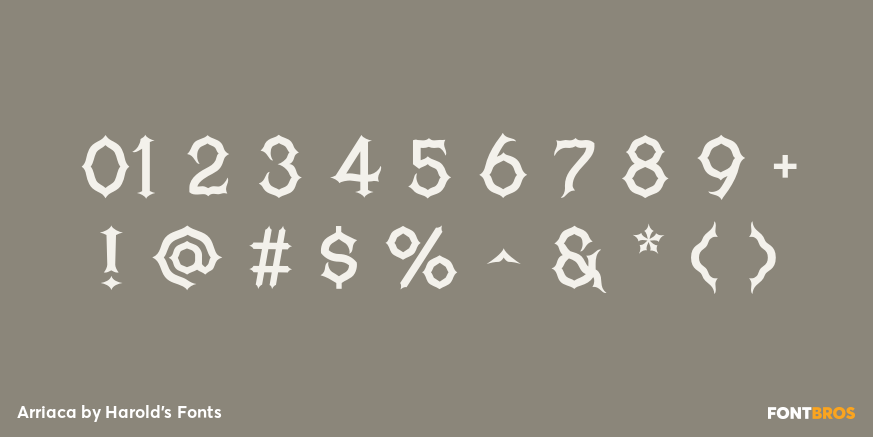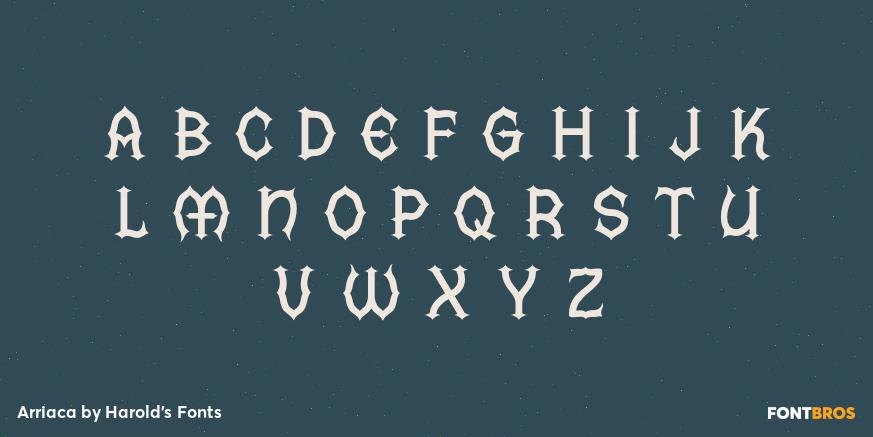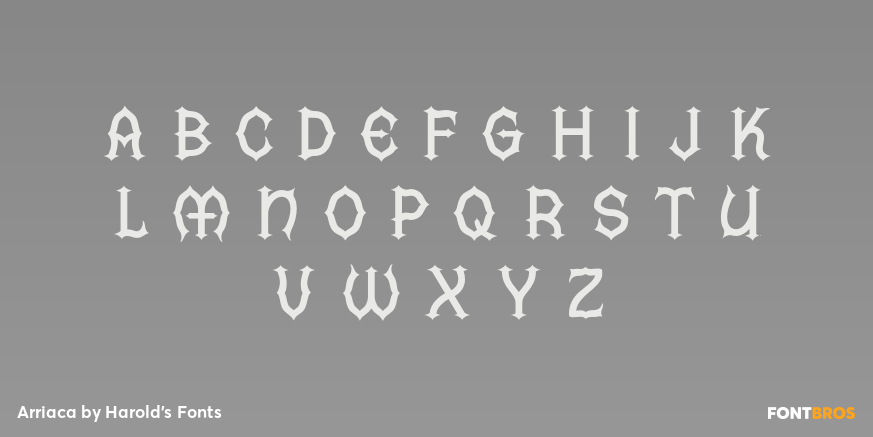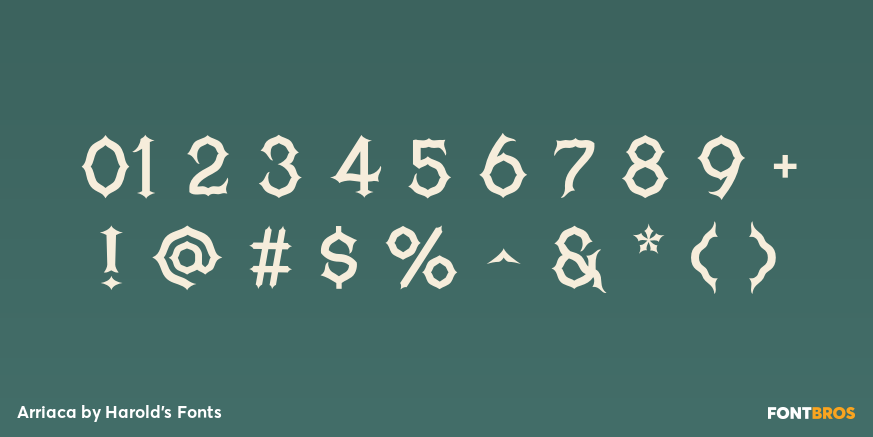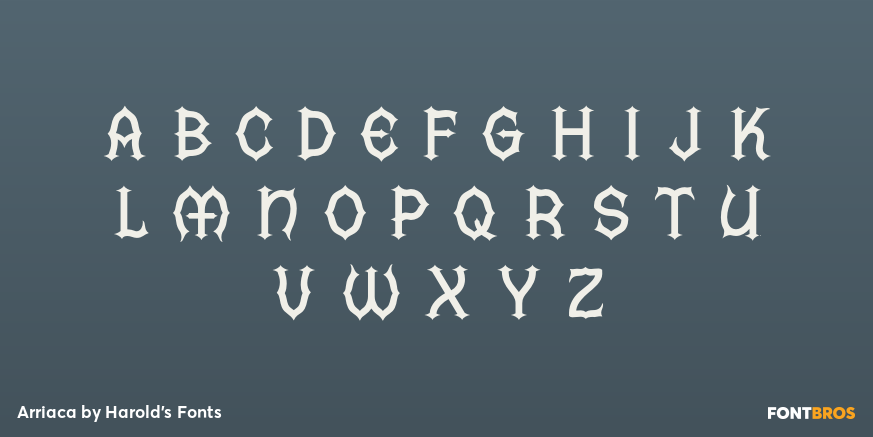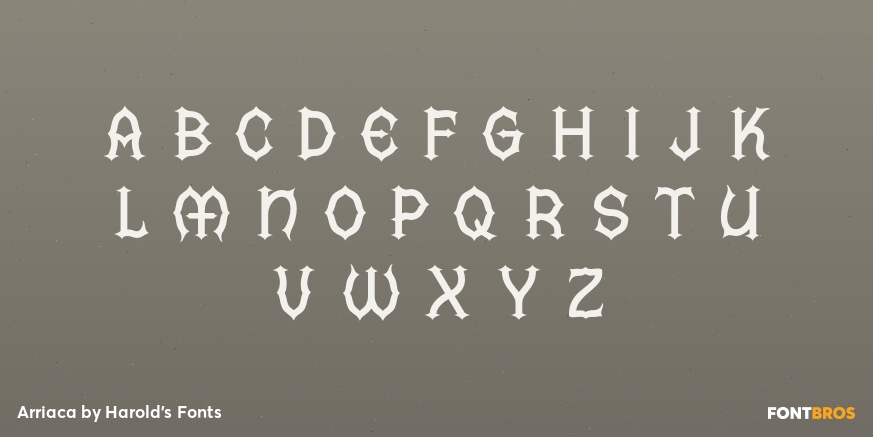
Arriaca
Font Family by Harold's Fonts
ARRIACA is a bold and exotic display font inspired by a 1940s lettering guide. This makes me think of Spanish “mudéjar” design, with some middle eastern flavor and the feel of wrought iron. Or maybe the points suggest spurs for a Western theme or spikes for a metal application. Now with a rare but useful DE ligature.